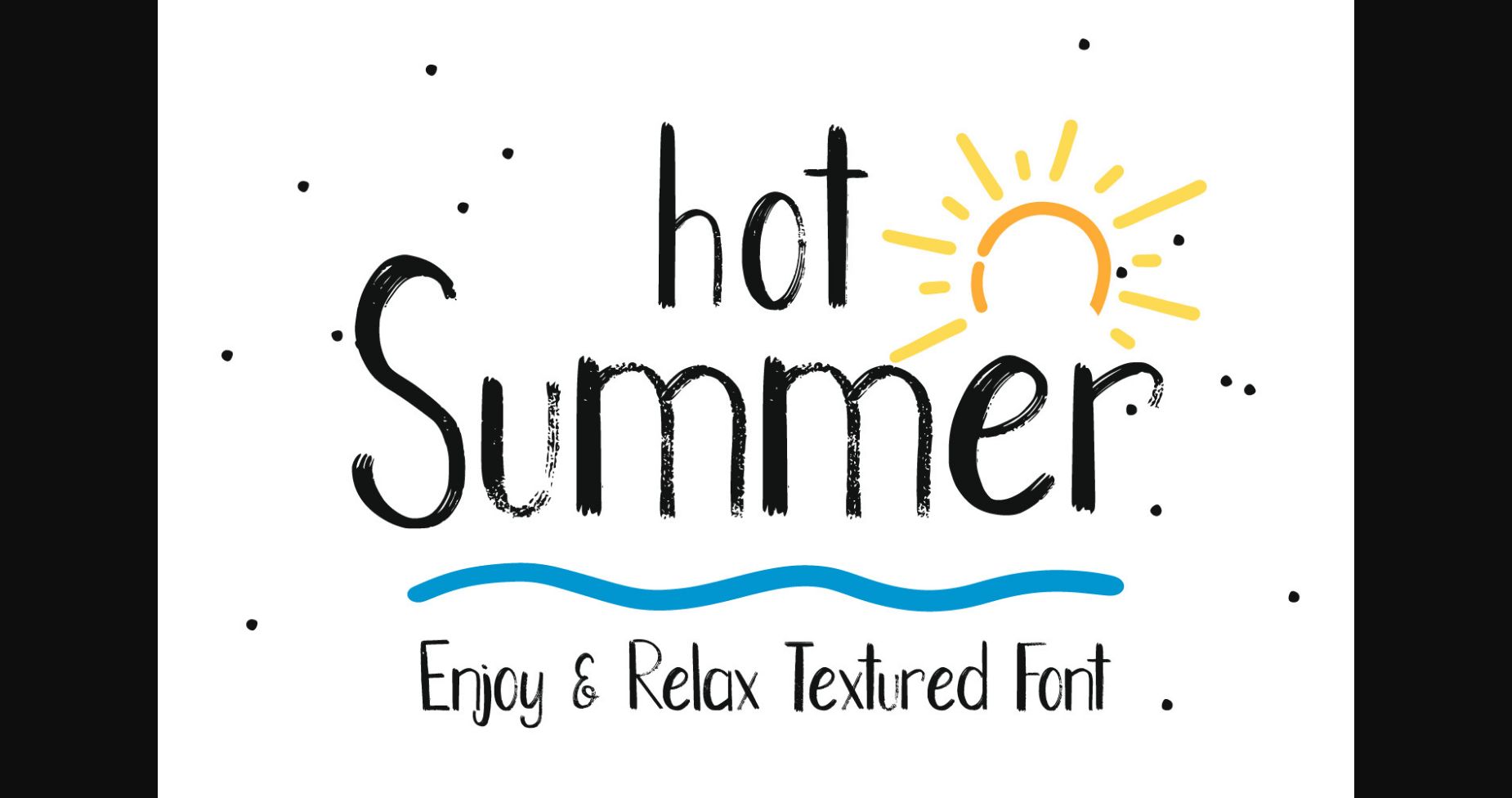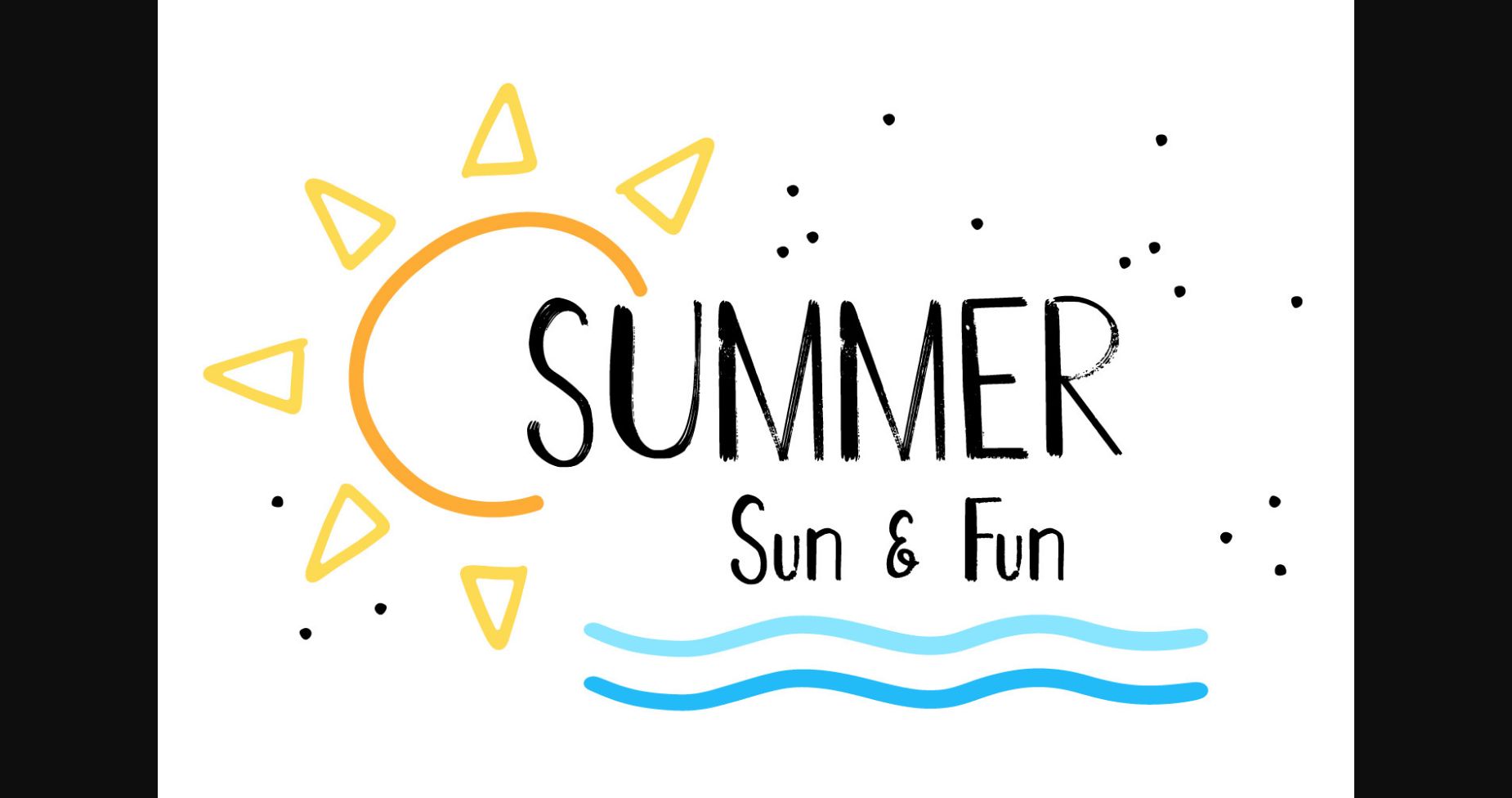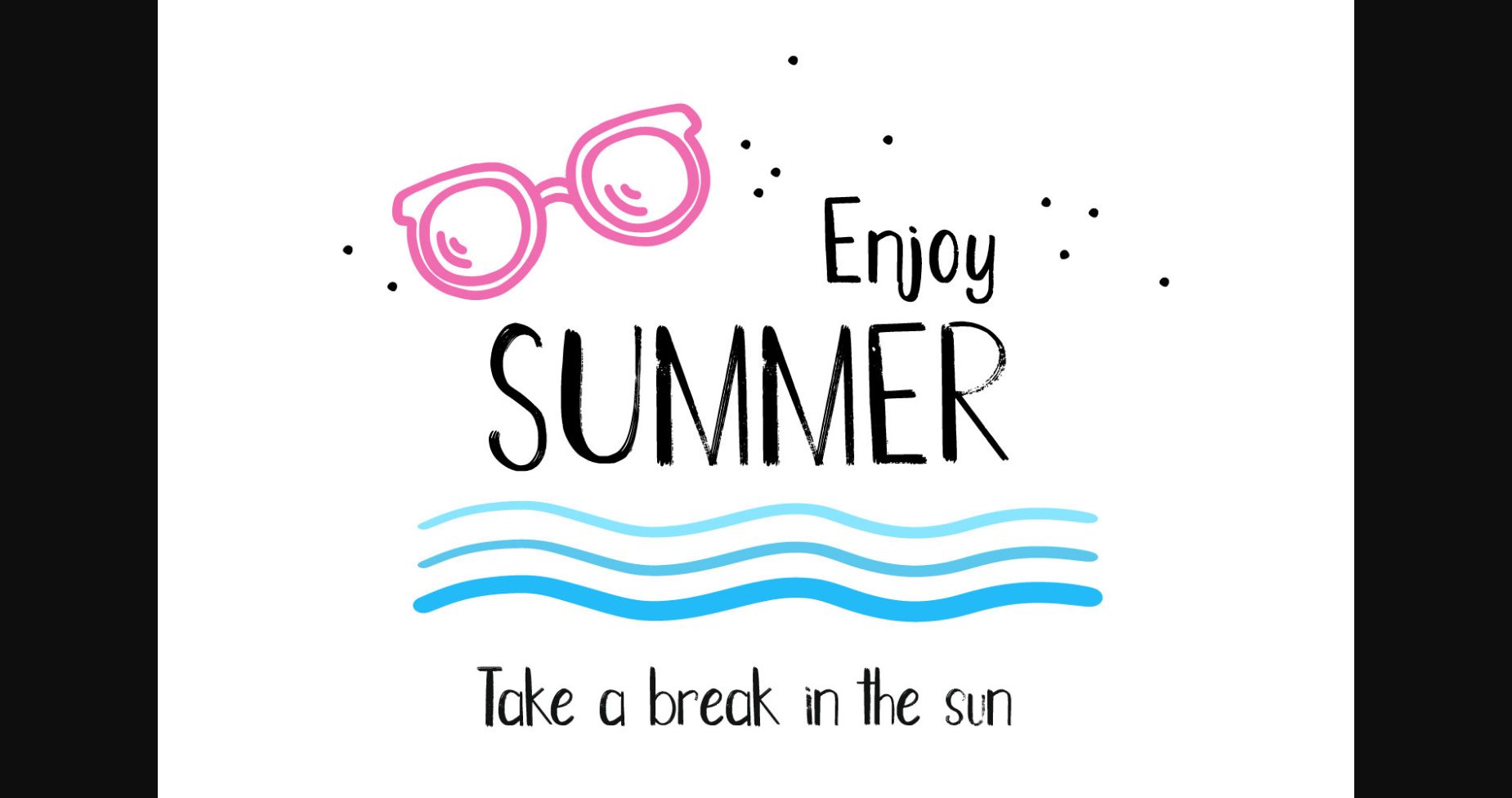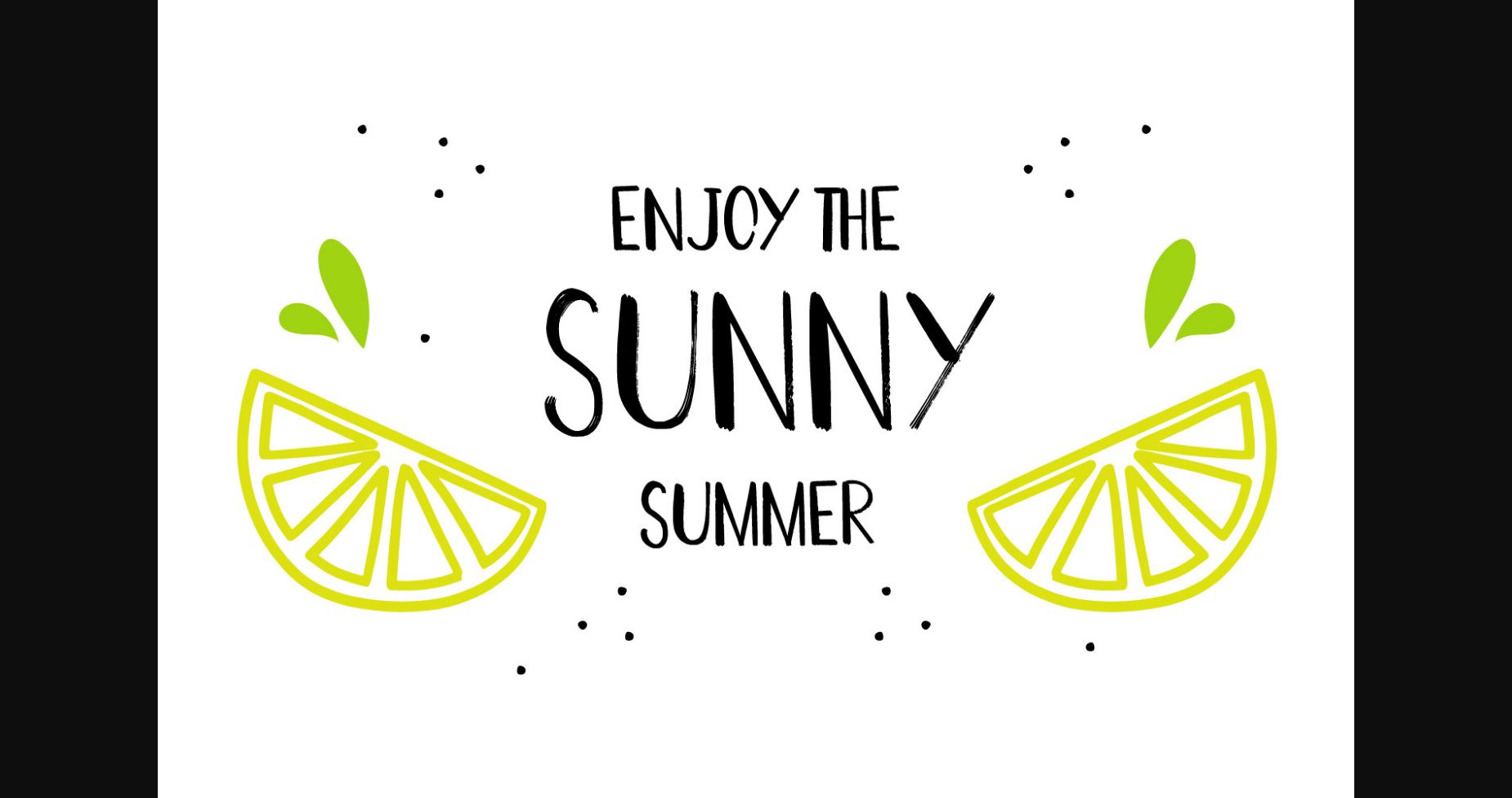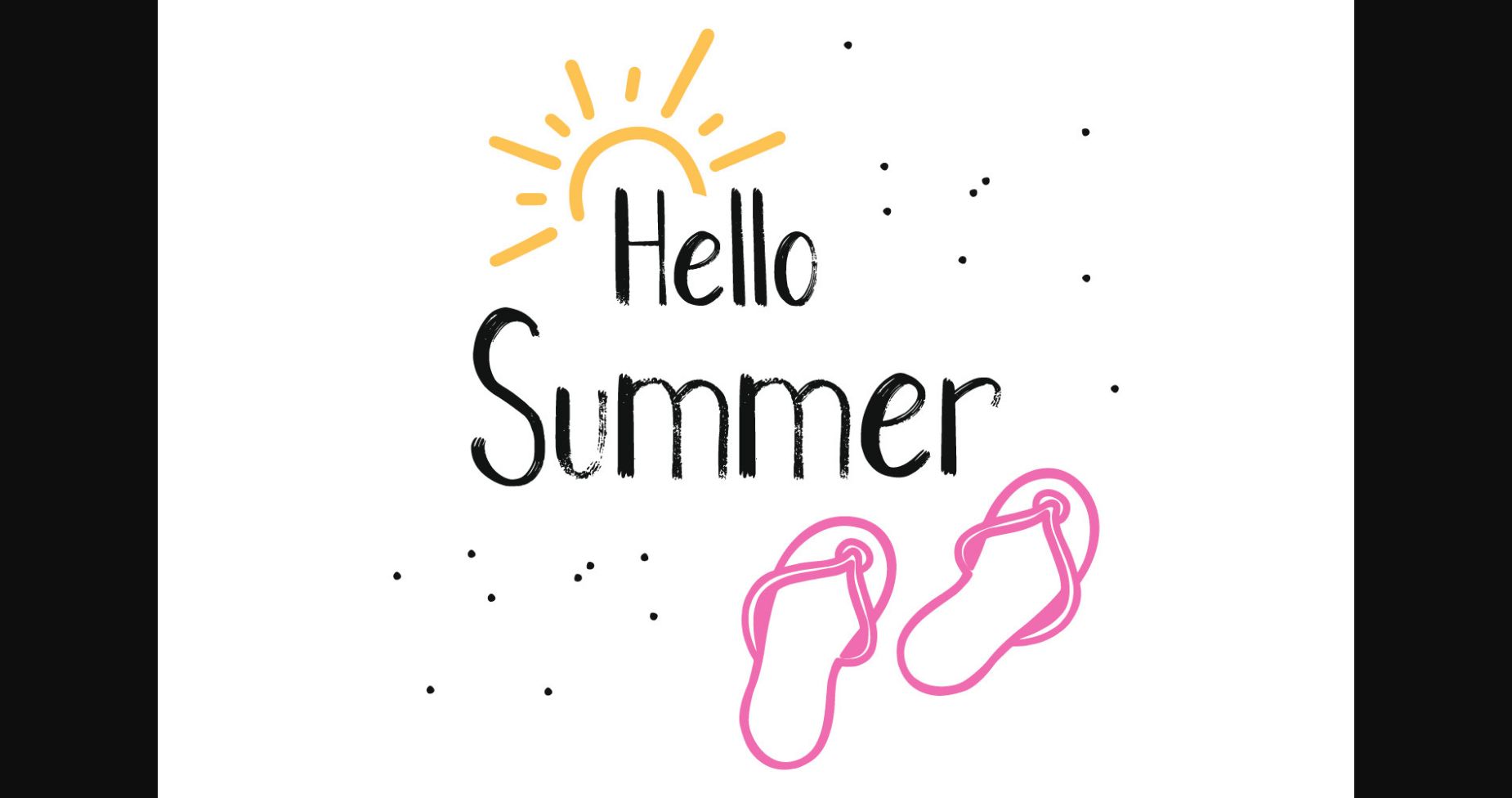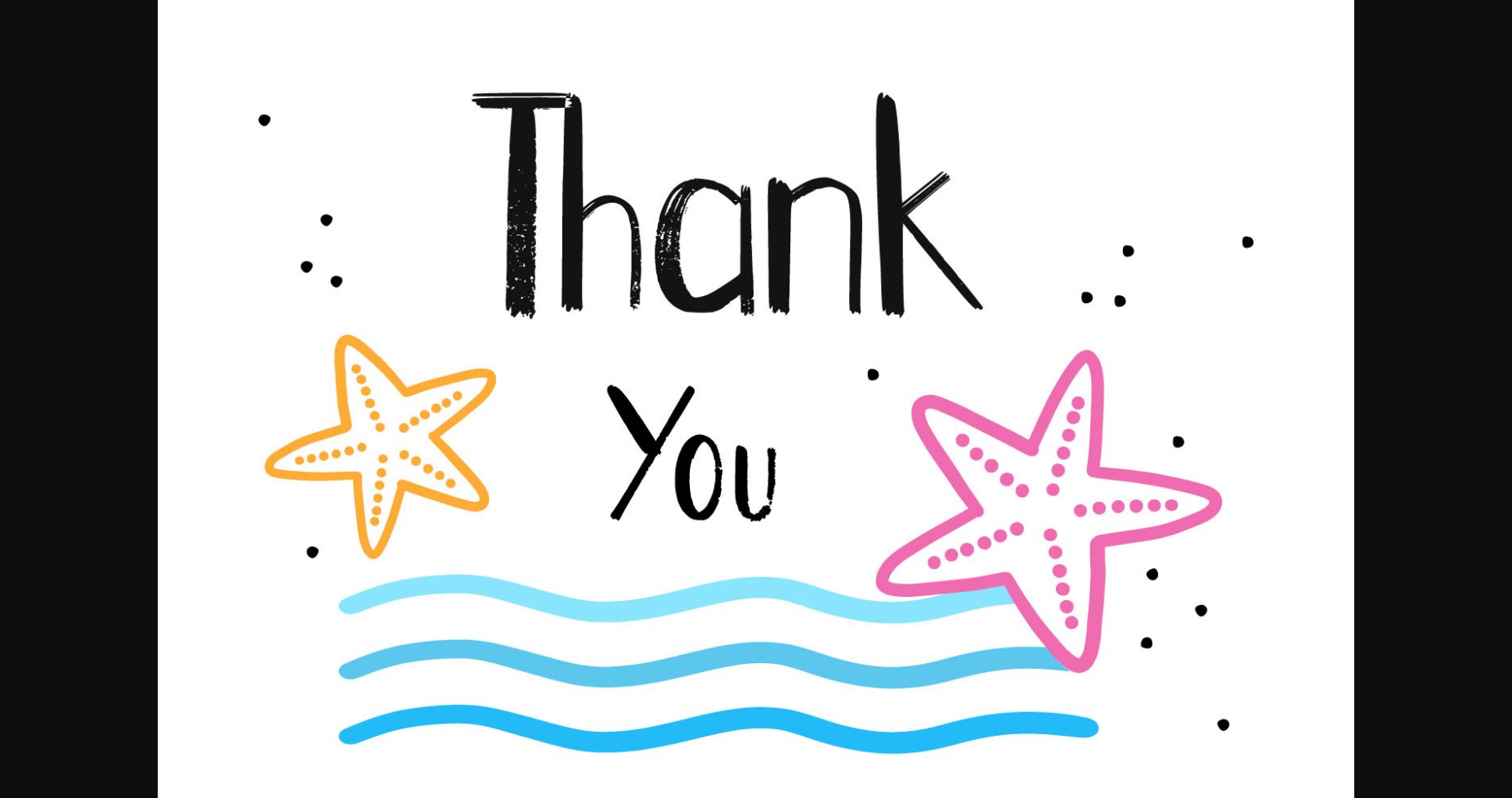
Hot Summer Font
About Hot Summer Font
Hot Summer is a nicely textured sans serif font. Its straight but playful duo-look makes this font perfect for quotes, shirt designs, mug designs, branding, overlay image, blogs, logos, invitations, and more!